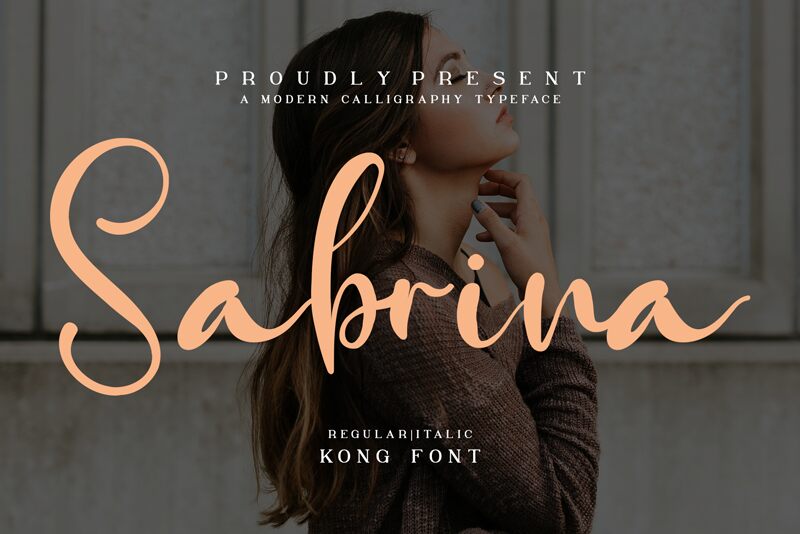
Sabrina font family is designed by Kong Font, which collects inspirations from the artistry of calligraphy. The 4-font styles of this font family are carefully constructed in calligraphic detailed styles that expose openness, intimacy, and warmth. Designed to be inviting, Sabrina lets readers familiarize a design and be fully present in the emotions it is transmitting. Download and try the free font for personal use that offers an exceptionally exceptional degree of legibility.
Every design can be a personal experience, and you can design one yourself with Sabrina for letters and envelopes, greeting cards, invitation cards, apparel designs, branding and packaging projects, business cards, etc.